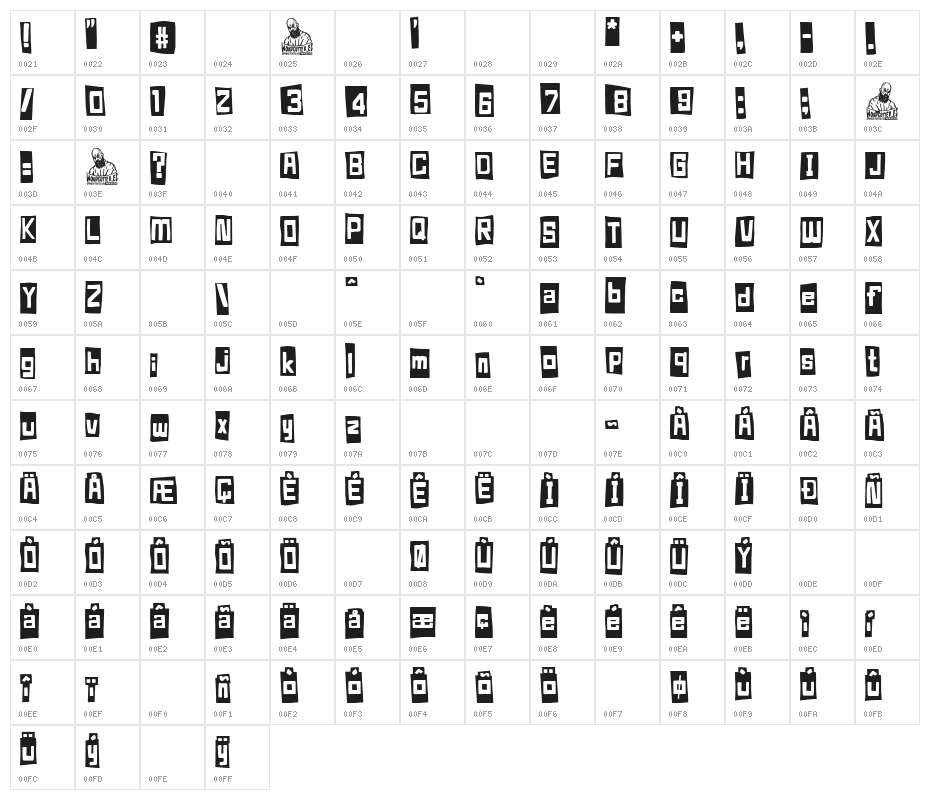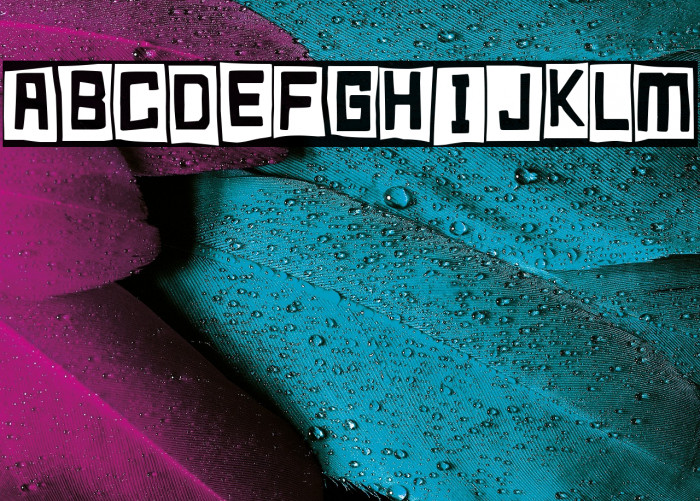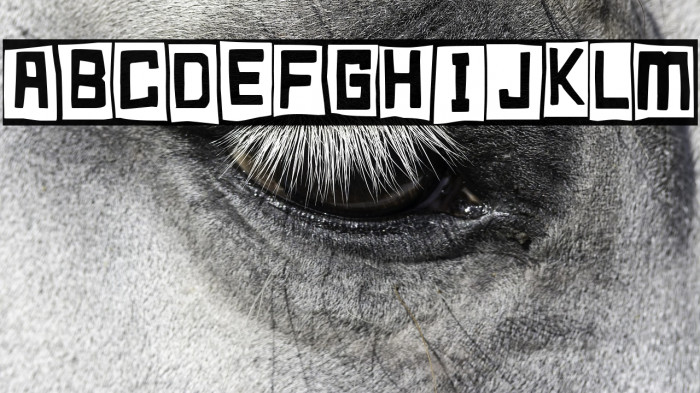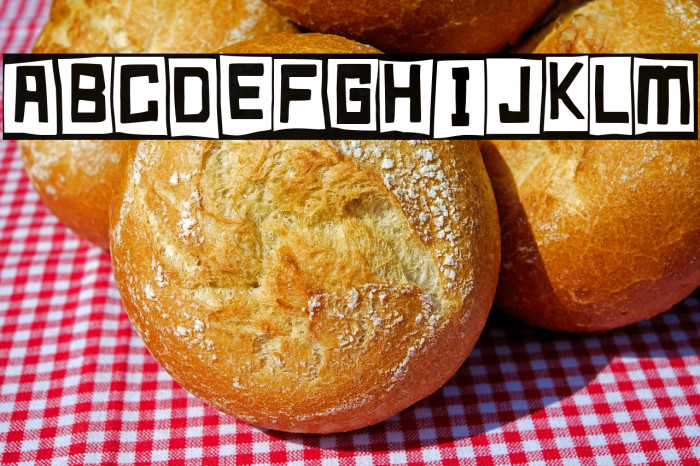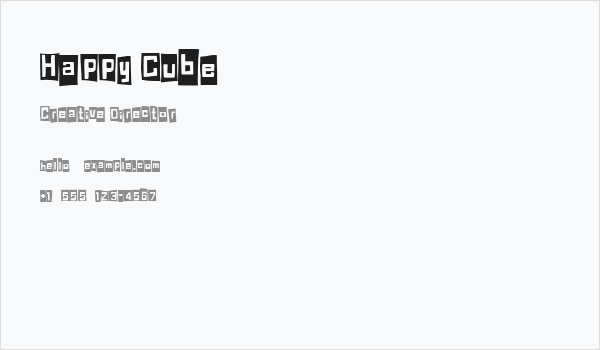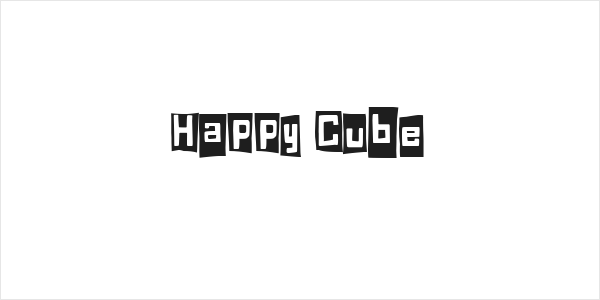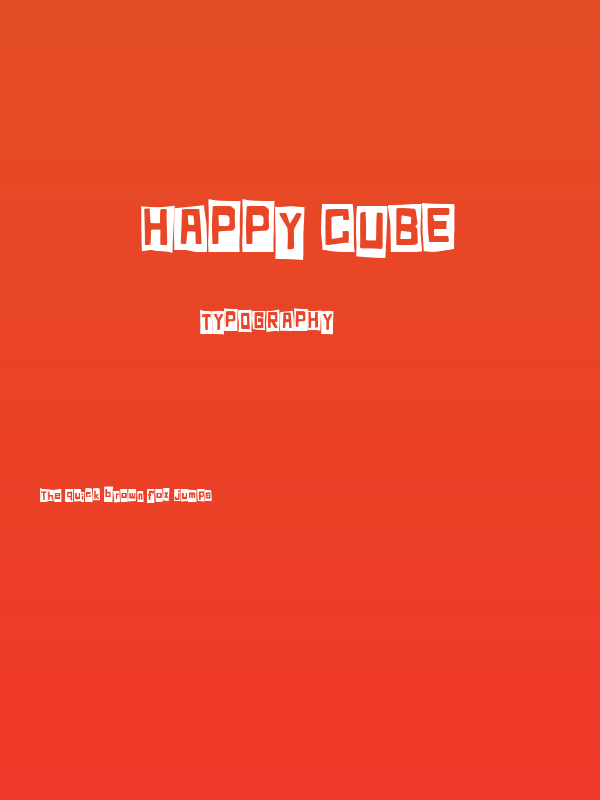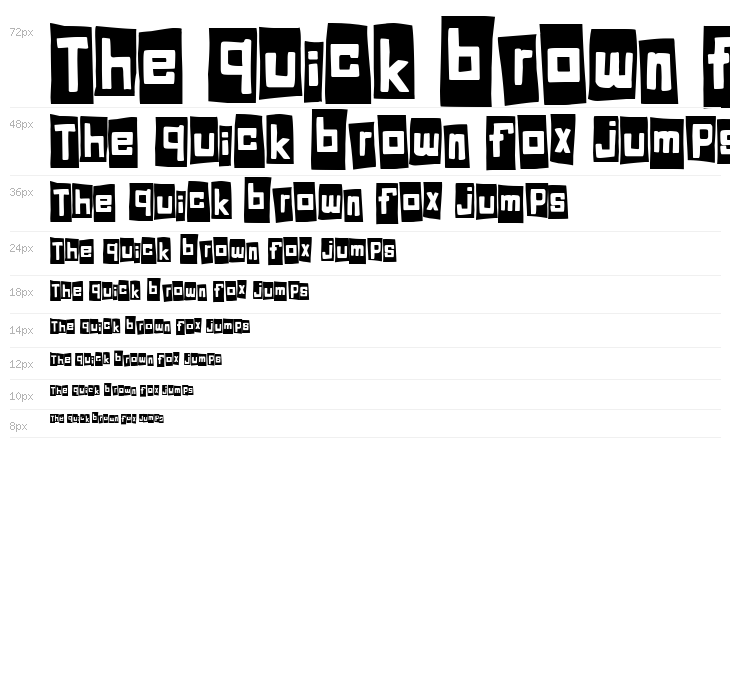
Happy Cube Font
Happy Cube Description
This font features a playful and quirky design, with each character enclosed in a slightly tilted square, giving it a unique and dynamic appearance. The letters are bold and have a hand-drawn feel, with irregular edges that add to the whimsical style. The uppercase and lowercase letters maintain a consistent style, while the numbers and special characters follow the same playful theme. This font is perfect for projects that require a fun and informal touch, such as children's books, posters, or creative branding.
| Overall Style | Playful, Quirky |
| Use Case | Headlines, Posters, Creative Branding |
| Proposed Projects | Ideal for children's books, playful posters, creative branding, and informal invitations. |